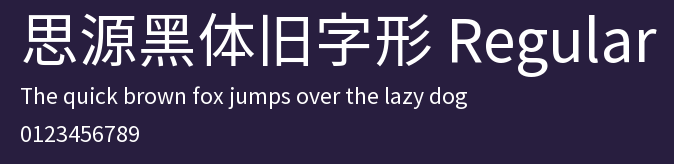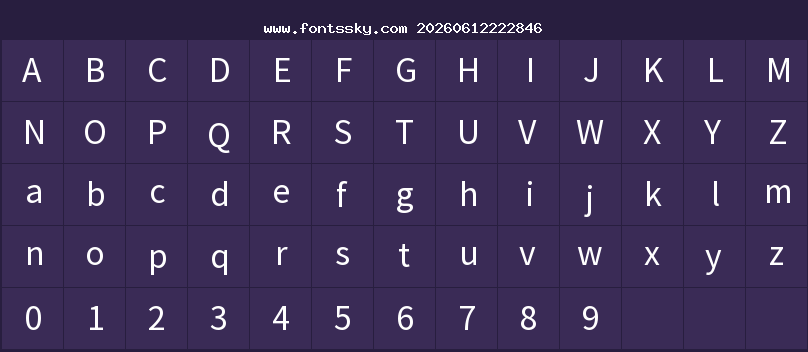
• Font Name: 思源黑体旧字形 Regular
• Full Font Name: 思源黑体旧字形 Regular
• PostScript Name: SourceHanSansOLD-Regular
• Designer: Ryoko NISHIZUKA 西塚涼子 (kana & ideographs); Paul D. Hunt (Latin, Greek & Cyrillic); Wenlong ZHANG 张文龙 (bopomofo); Sandoll Communication 산돌커뮤니케이션, Soo-young JANG 장수영 & Joo-yeon KANG 강주연 (hangul elements, letters & syllables)
• Manufacturer: Adobe Systems Incorporated
• Description: Dr. Ken Lunde (project architect, glyph set definition & overall production); Masataka HATTORI 服部正貴 (production & ideograph elements)
About 思源黑体旧字形 Regular.ttf
思源黑体旧字形 Regular.ttf is a modern, elegant sans-serif font designed for ultimate readability and visual harmony. Perfect for branding, headlines, web design, and print materials.